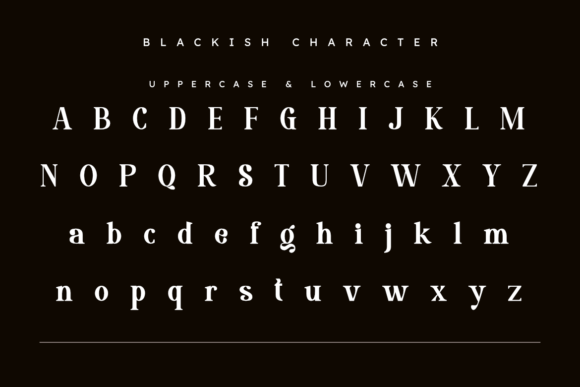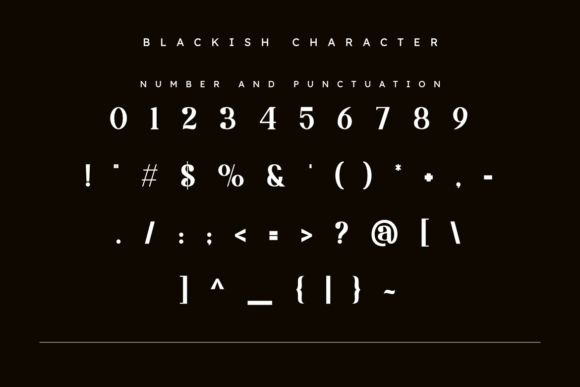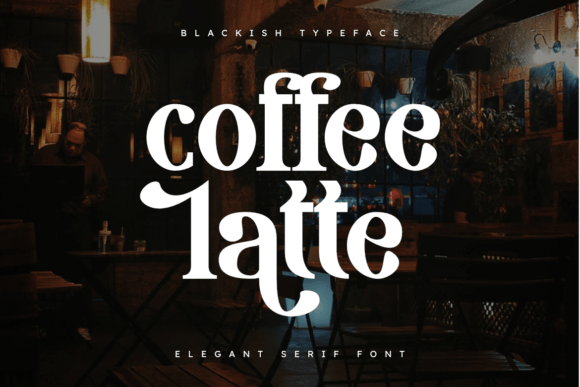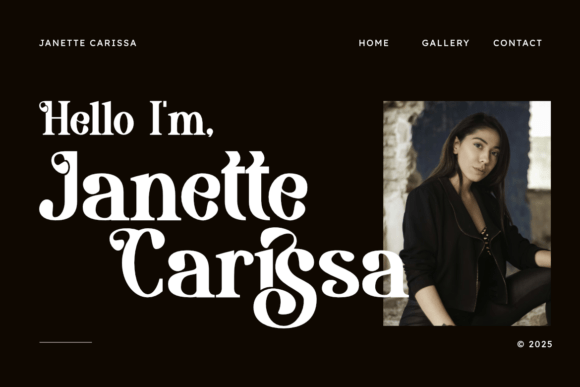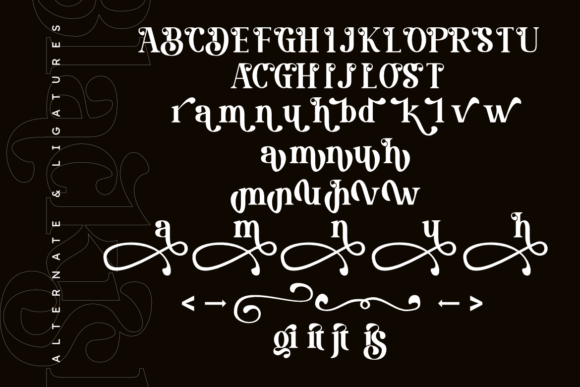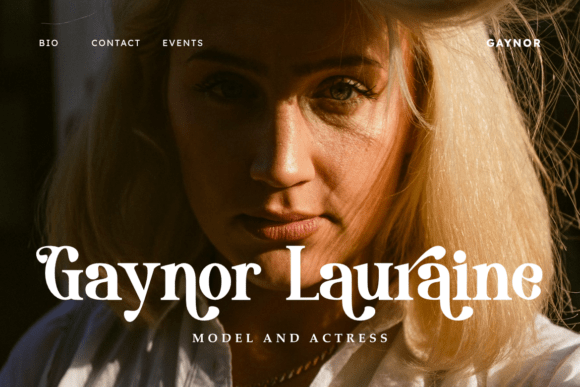
Introducing Blackish Font: Elevate Your Brand with Timeless Elegance
In the world of typography, a well-crafted font can make all the difference in elevating a brand’s identity. Blackish Font is a sophisticated serif typeface that seamlessly blends classic elegance with modern flair, making it the perfect choice for designers and crafters looking to make a statement. With its high-contrast strokes and unique decorative curves, Blackish Font is designed to add a touch of luxury to any project.
A Timeless Silhouette for High-End Branding
Blackish Font boasts a timeless silhouette that exudes sophistication and refinement. Its classic serif design makes it perfect for high-end branding, editorial layouts, and luxury packaging. Whether you’re working on a brand identity project, a magazine layout, or a product packaging design, Blackish Font is sure to impress. Its elegant design ensures that your brand maintains a level of sophistication and professionalism that will leave a lasting impression on your audience.
Unique Features for Maximum Impact
So, what sets Blackish Font apart from other serif typefaces? Here are a few unique features that make it a standout choice for designers and crafters:
• High-contrast strokes: Blackish Font features high-contrast strokes that add depth and dimension to your designs. This makes it perfect for creating visually striking headlines, titles, and captions.
• Unique decorative curves: The font’s unique decorative curves add a touch of elegance and sophistication to your designs. These curves can be used to create beautiful and intricate designs that will set your brand apart.
Blackish Font is a versatile typeface that can be used in a variety of applications, including:
• High-end branding: Create a sophisticated brand identity with Blackish Font. Its elegant design makes it perfect for luxury brands, fashion labels, and high-end product packaging.
• Editorial layouts: Use Blackish Font to create stunning editorial layouts for magazines, newspapers, and online publications. Its classic serif design makes it perfect for body text and headlines.
• Luxury packaging: Add a touch of elegance to your product packaging with Blackish Font. Its sophisticated design makes it perfect for high-end product packaging, labels, and branding materials.
Why Choose Blackish Font?
So, why should you choose Blackish Font for your next design project? Here are a few reasons:
• Timeless elegance: Blackish Font boasts a timeless silhouette that exudes sophistication and refinement.
• Versatility: The font can be used in a variety of applications, from high-end branding to editorial layouts and luxury packaging.
• Unique features: Blackish Font’s high-contrast strokes and unique decorative curves make it a standout choice for designers and crafters.
In conclusion, Blackish Font is a sophisticated serif typeface that is perfect for designers and crafters looking to add a touch of elegance to their designs. With its timeless silhouette, unique features, and cross-platform compatibility, Blackish Font is the perfect choice for high-end branding, editorial layouts, luxury packaging, and digital platforms.